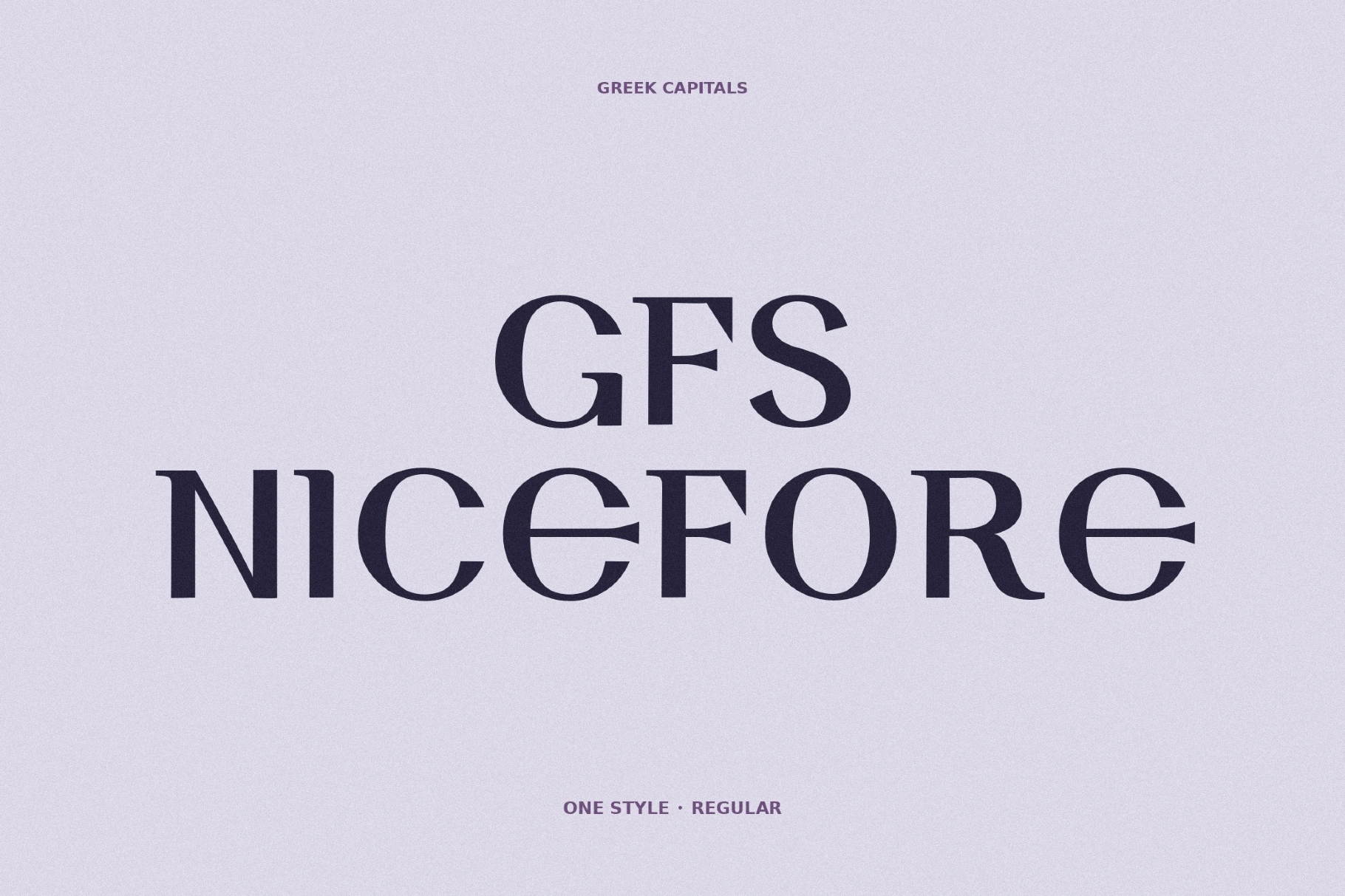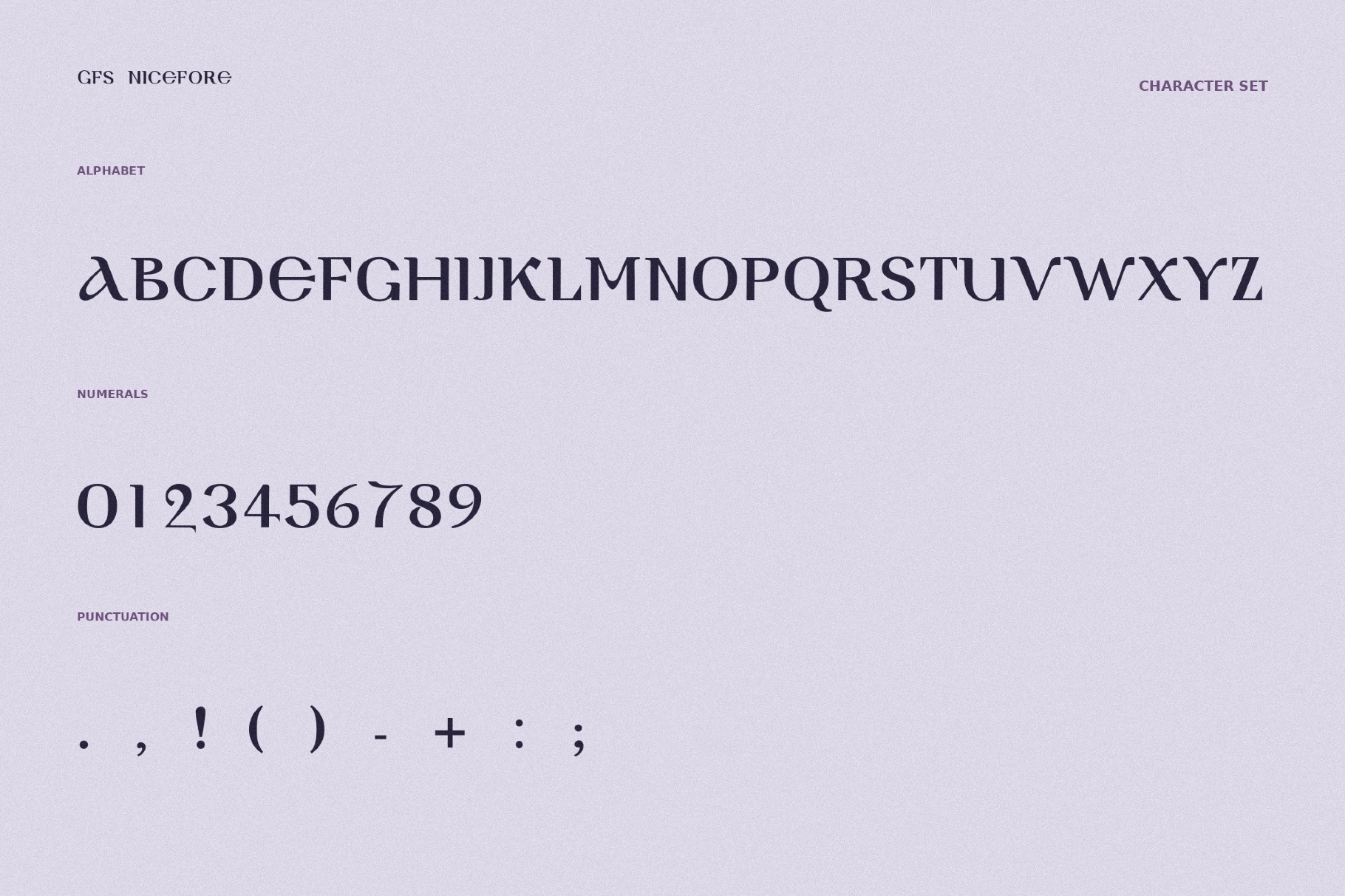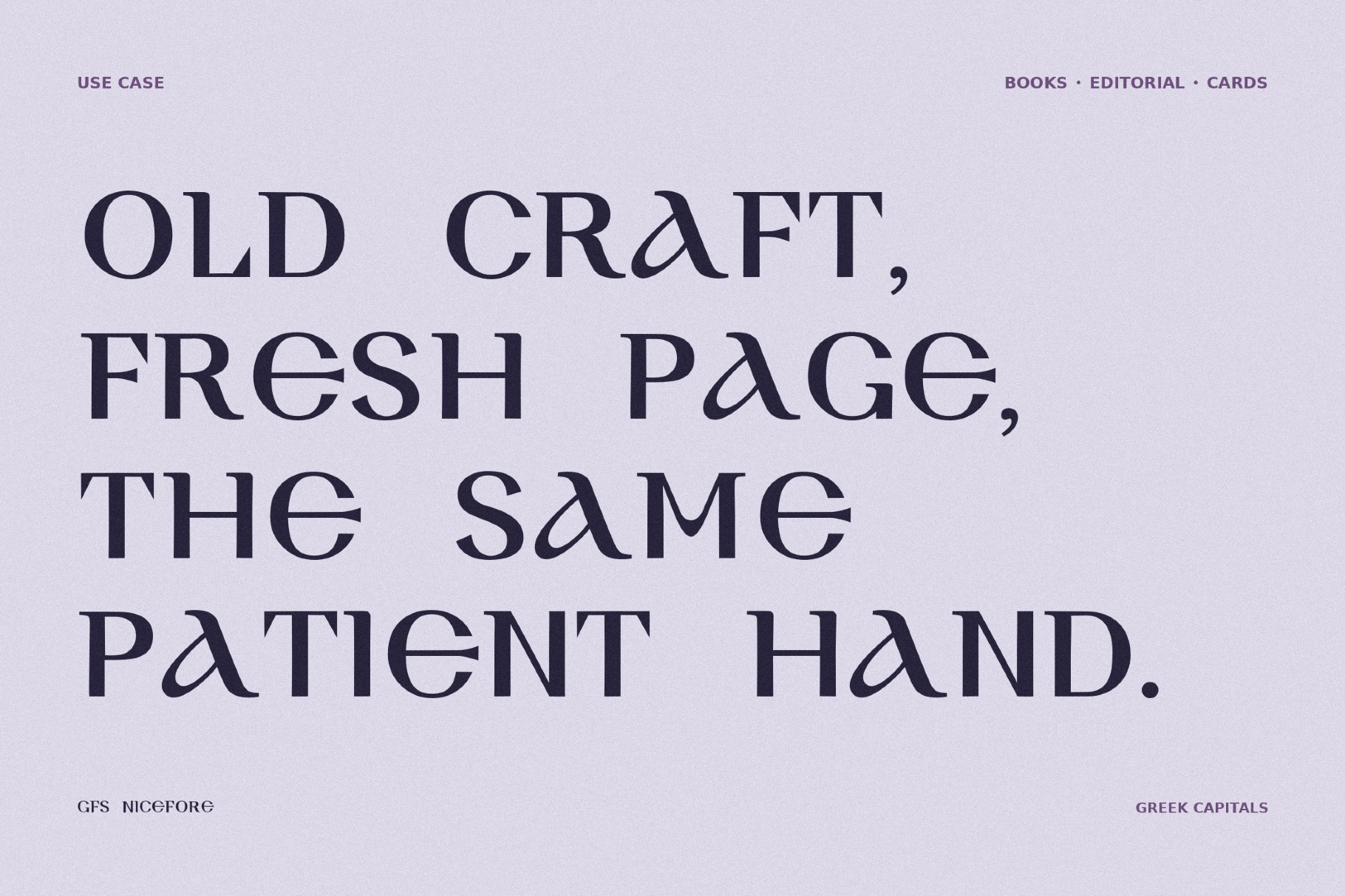
GFS Nicefore - Free Greek Font
GFSNicefore
Greek-inspired capitals of GFS Nicefore combine crisp serif contrast, carved rhythm, and graceful proportions for a polished antique mood. References to Byzantine manuscripts and to old Mediterranean print culture come through in the details, making the font a perfect choice for academic covers, exhibition posters, cultural identities, wine labels, travel editorials, book titles, ceremonial stationery, gallery materials, and refined packaging.
- uppercase letters;
- numbers, punctuation, and symbols;
- multilingual support across basic Latin and Greek scripts.